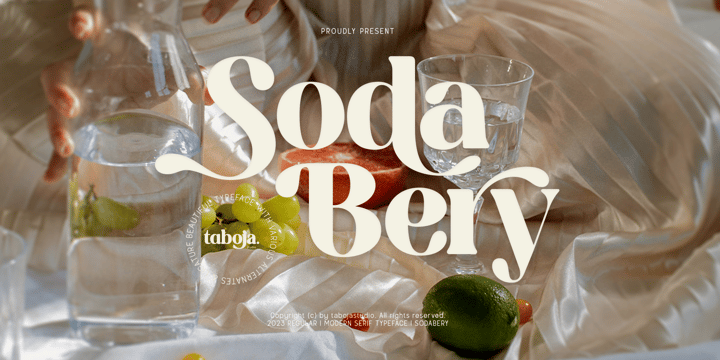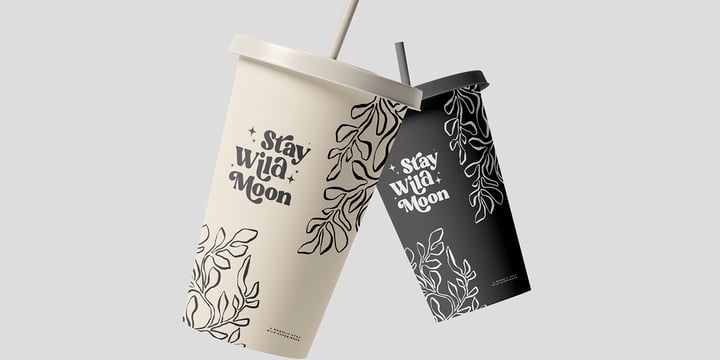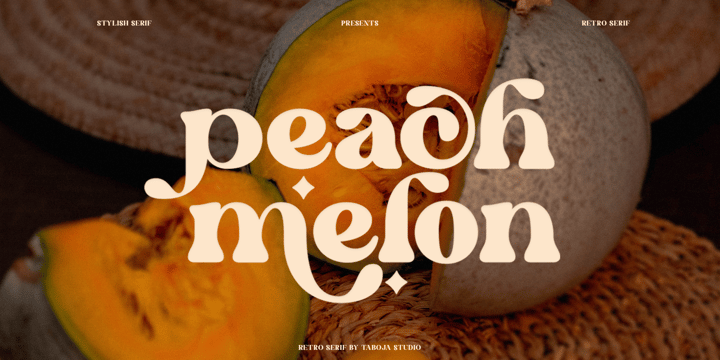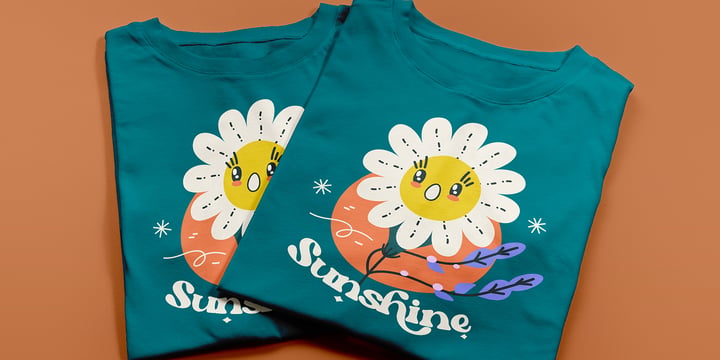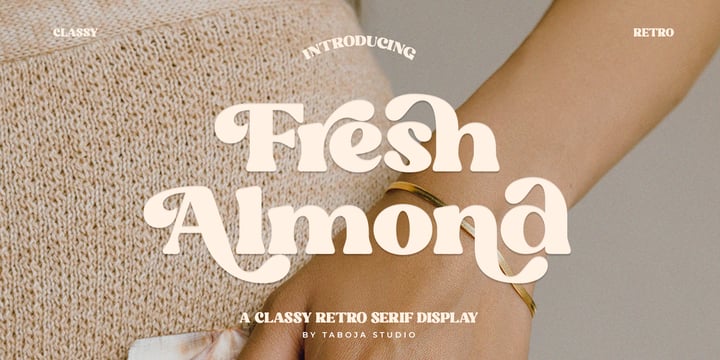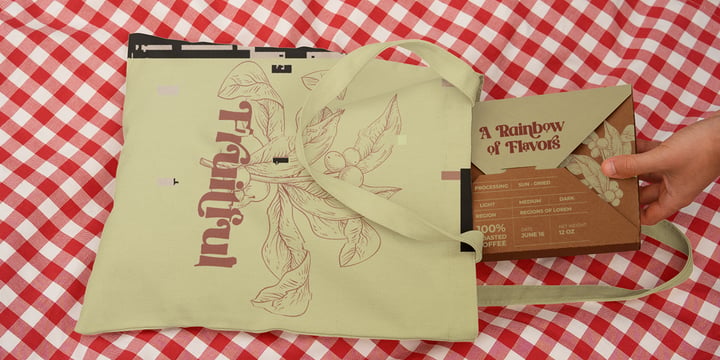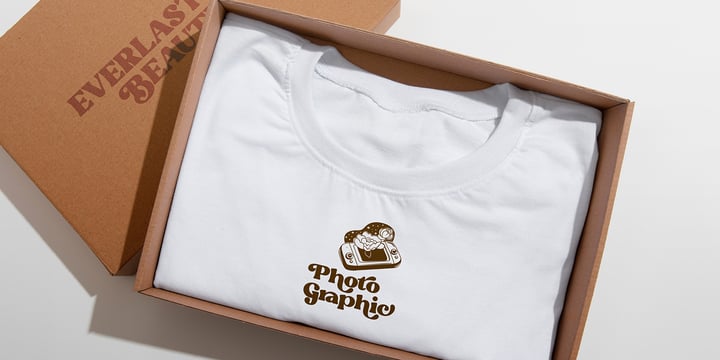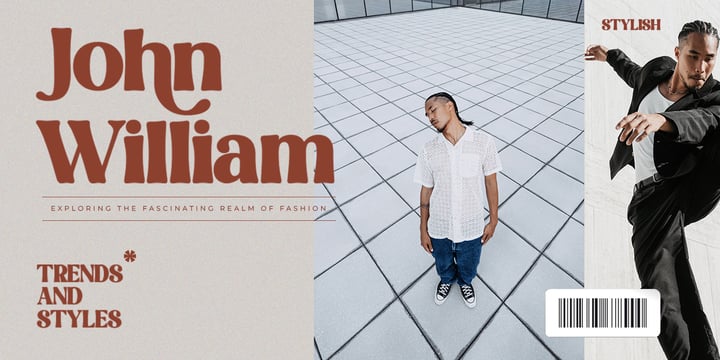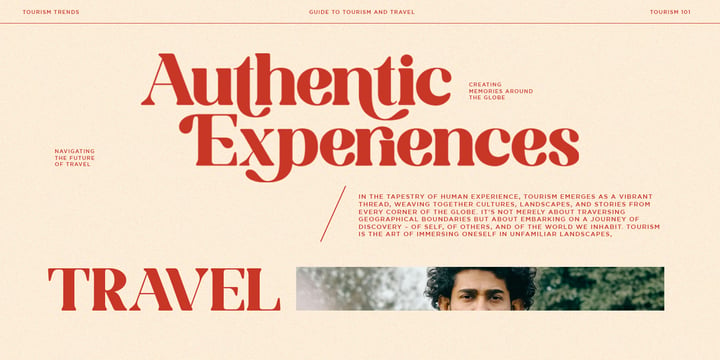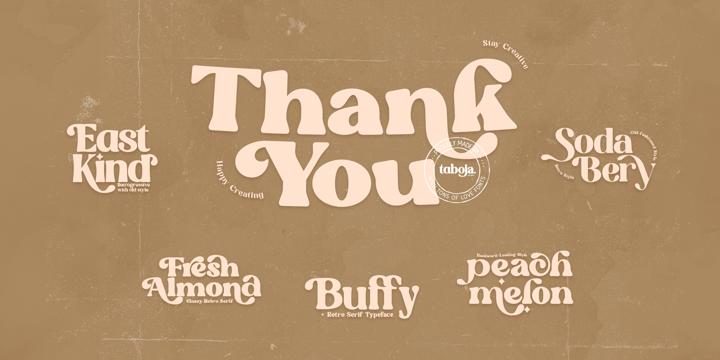
Retro Bundle III
Looking to bring some retro vibes to your next project? Retro Bundle Vol 3 has got you covered! This collection packs five awesome fonts, each with its own unique style, perfect for giving your designs that nostalgic touch. Here’s what’s inside:
East Kind++ – Smooth and vintage-inspired, with just the right amount of retro flair.
Sodabery – A versatile serif with cool alternates for a classic yet modern look.
Peach Melon – Quirky and full of personality, perfect for adding some charm.
Fresh Almond – Light, crisp, and fresh, mixing retro with a modern twist.
Buffy++ – A bold, playful serif that adds a fun, lively feel.